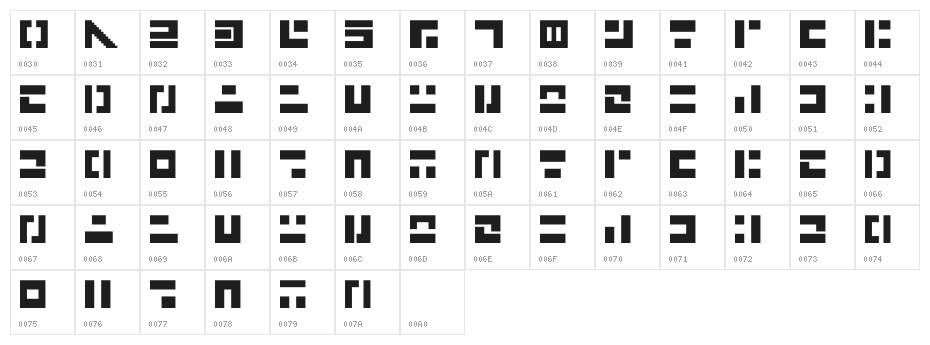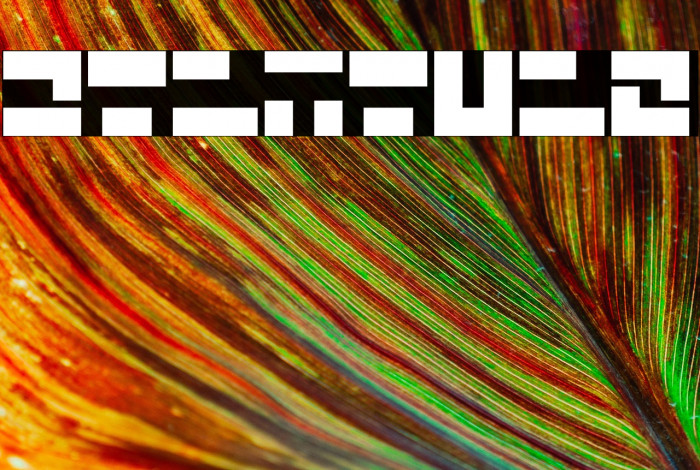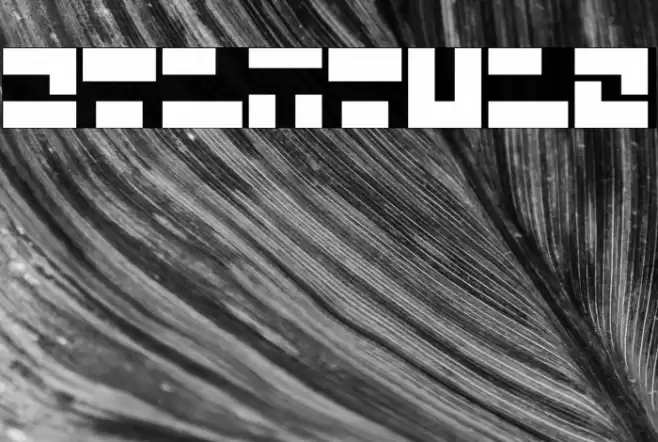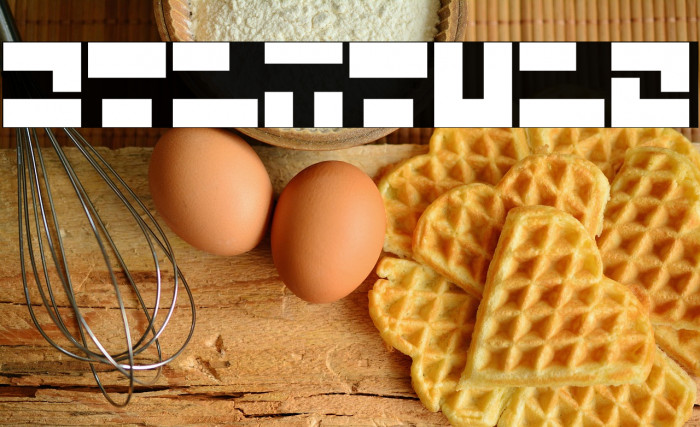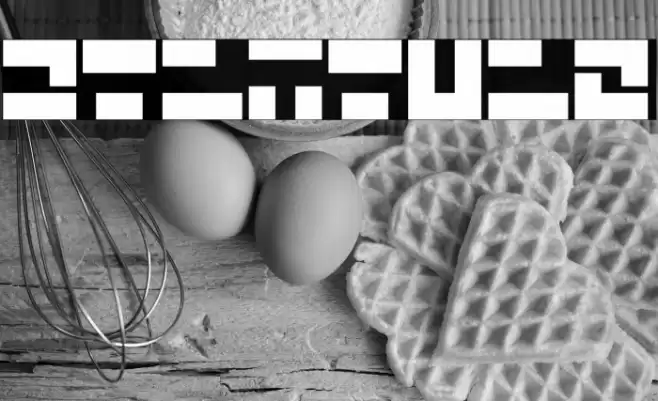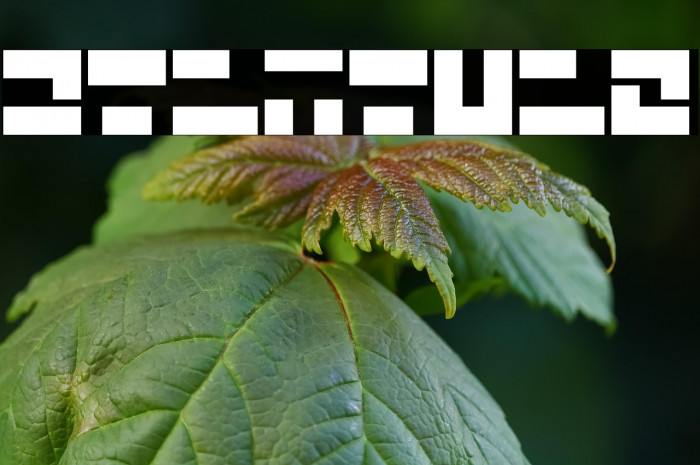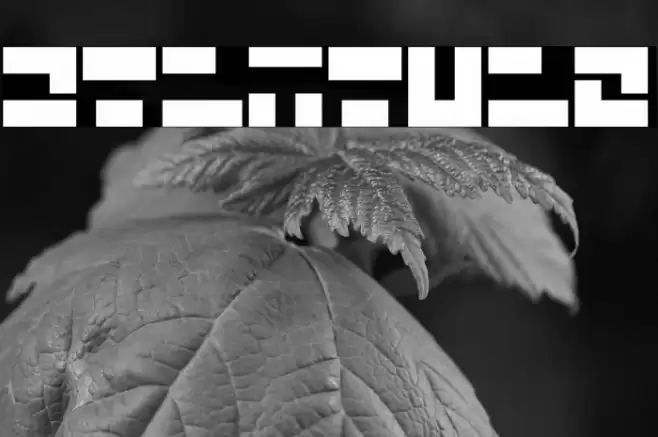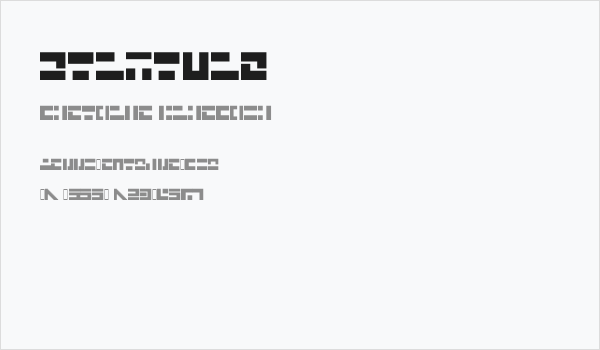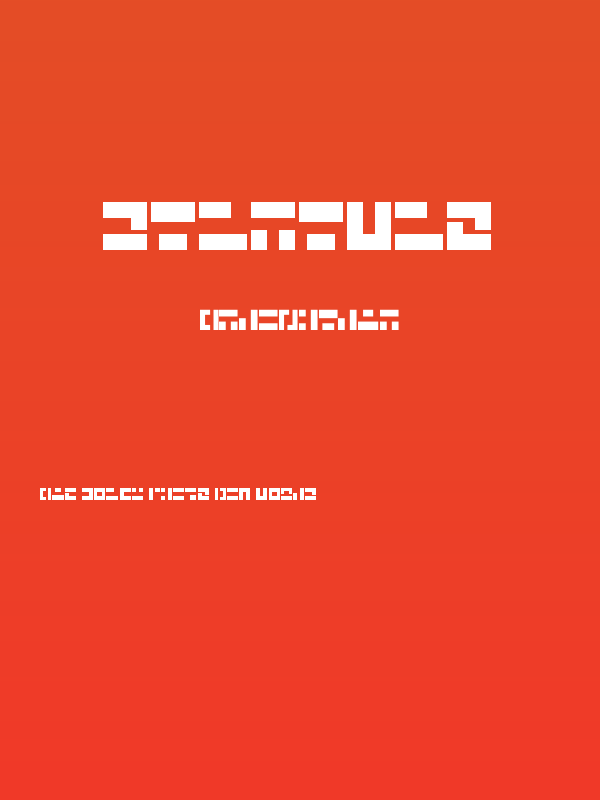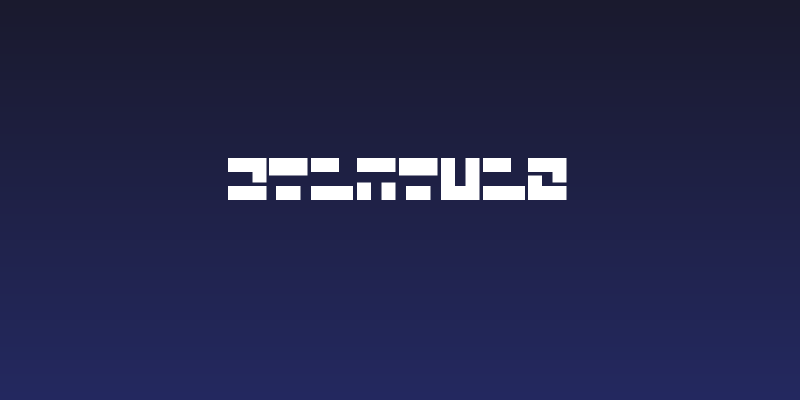
Saiyajin Font
Saiyajin Description
This font is a highly stylized, decorative typeface that draws inspiration from futuristic and alien aesthetics. The characters are composed of bold, geometric shapes with sharp angles and straight lines, giving it a digital or sci-fi appearance. The uniformity in stroke width across all characters provides a cohesive look, while the unique design of each letter adds a distinct personality. This font is not designed for readability in large blocks of text but rather for impactful, eye-catching displays.
| Overall Style | Futuristic, Sci-Fi |
| Proposed Projects | Ideal for use in sci-fi themed projects, video game titles, movie posters, or any design requiring a futuristic and bold aesthetic. |